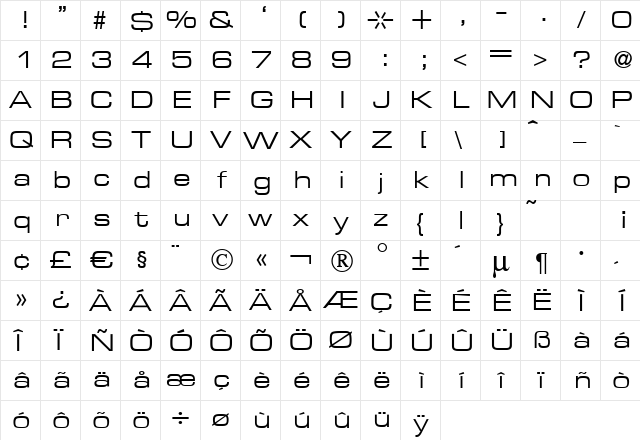
EurasiaEx Regular Font Preview
EurasiaEx Regular
Design Context for EurasiaEx Typeface
EurasiaEx is a composed and adaptable typeface that performs quietly and consistently across a wide range of design contexts.
Pro Tip: Use EurasiaEx in both headline and body roles to test its range before committing to a single application.